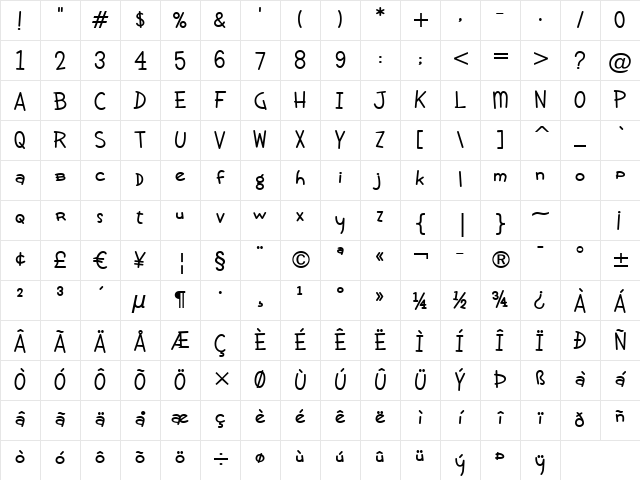
Complete Crazy Girlz Brunette BTN Bold glyph index. Displaying only characters natively supported by Crazy Girlz Brunette BTN Bold font.
Crazy Girlz Brunette BTN is a composed and adaptable typeface that performs quietly and consistently across a wide range of design contexts. Its bold stroke weight gives it real presence on the page.